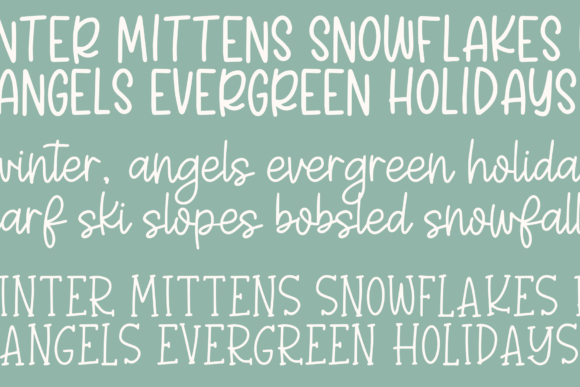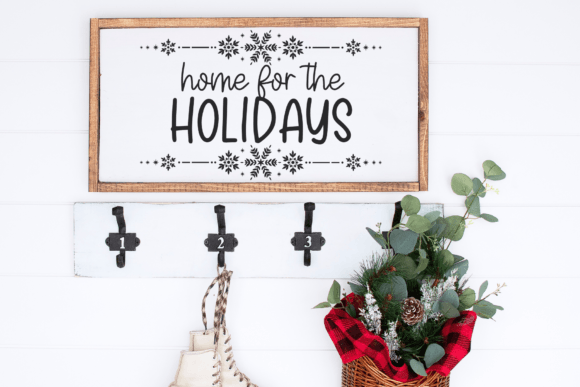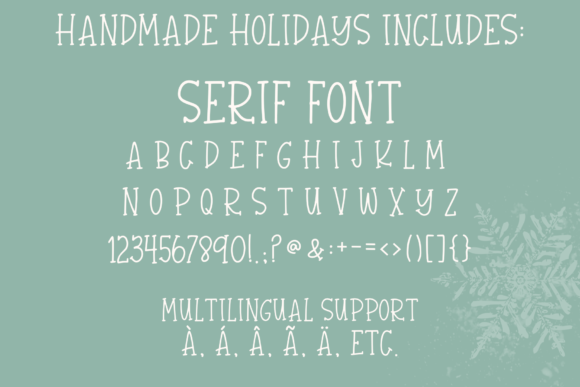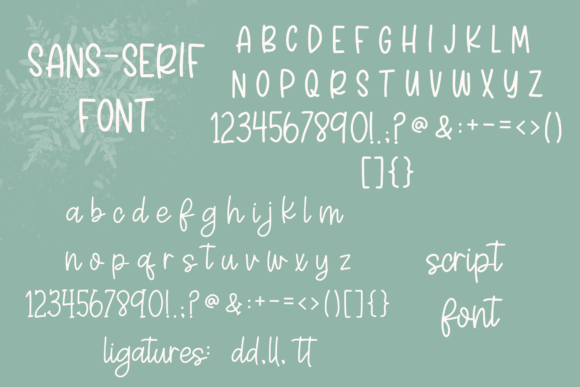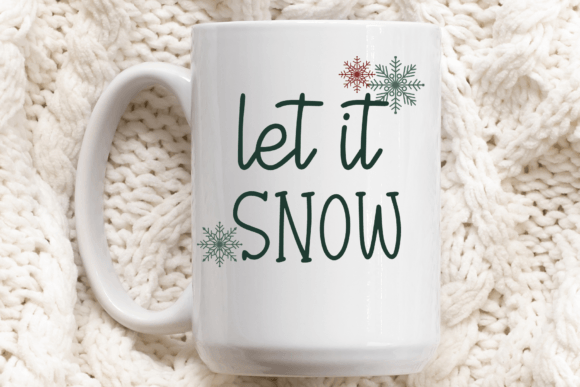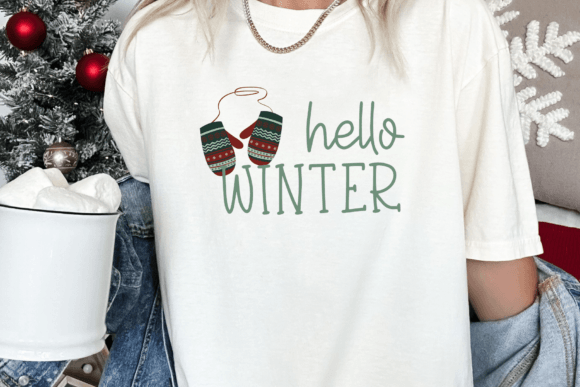
Introduction to Handmade Holidays Trio Font
As the holiday season approaches, I find myself rummaging through my stash of glittery decorations and crafting supplies, searching for the perfect way to add a personal touch to my gift tags and cards. There’s something special about making something by hand, don’t you think? The imperfections, the character, the love that goes into every stitch and every stroke of the pen.
For designers, finding the right font can make all the difference in bringing a creative project to life. That’s why I’m excited to introduce you to the Handmade Holidays Trio Font, a beautifully crafted set of three fonts that’s perfect for adding a touch of whimsy and personality to your designs.
With its high-quality design and transparent background, this font trio is a must-have for any designer looking to add a handmade feel to their projects. Whether you’re creating holiday cards, social media graphics, or t-shirt designs, the Handmade Holidays Trio Font is the perfect design resource to help you stand out from the crowd.
Key Features of Handmade Holidays Trio Font
• Unique, hand-drawn design perfect for creative holiday projects
• High-quality, transparent background for seamless integration into designs
• Available in three distinct styles, ideal for mixing and matching in creative projects
Honest Review: Handmade Holidays Trio Font
I recently stumbled upon the Handmade Holidays Trio Font while searching for a unique design resource for my upcoming holiday project. The free download caught my attention, and I was excited to give it a try.
• ✨ High-quality font with a clear and elegant design
• ✨ Transparent background, making it easy to combine with other elements
• ✨ Perfect for creative projects, including invitations, cards, and social media graphics
• ⚠️ Limited font styles and sizes, which might not be ideal for complex designs
Overall, I’m impressed with the Handmade Holidays Trio Font. It’s a great addition to any designer’s toolkit, especially for smaller, personal projects. While it may not be the most versatile font, its unique charm and high-quality design make it a valuable resource for creative projects.
The Handmade Holidays Trio Font is a high-quality design resource perfect for any creative project. With a transparent background, it’s easy to use in a variety of applications, including digital and print materials.
Getting the Most Out of the Font
To get the most out of the Handmade Holidays Trio Font, experiment with different font sizes, colors, and styles. You can also combine it with other design elements, such as images and graphics, to create unique and eye-catching designs.
The Handmade Holidays Trio Font is perfect for a variety of projects, including holiday cards, social media graphics, print materials, and presentations. It’s also great for creating custom invitations, gift tags, and other holiday-themed items.
Sparkle Script Font
Sparkle Script Font is a high-quality design resource ideal for a creative project that needs a touch of sparkle. It features a transparent background and a bold, cursive design.
Use Sparkle Script Font for designs that require a sense of excitement and energy, such as party invitations or social media graphics.
Does the Handmade Holidays Trio Font have a transparent background?
Yes, the Handmade Holidays Trio Font features a transparent background, making it ideal for designers who want to add a touch of elegance to their designs without the distraction of a solid background.